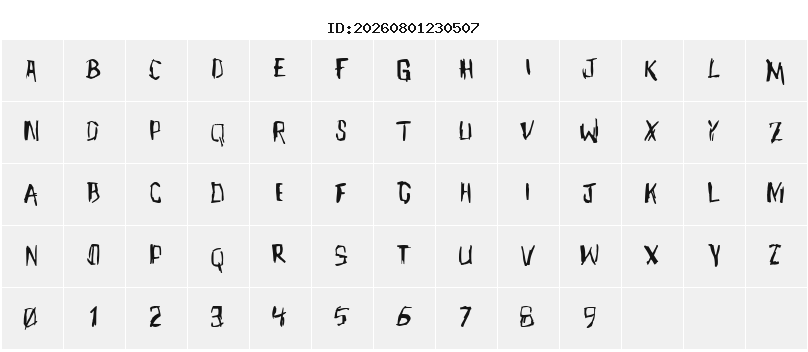
• Font Name: Meet John Henry
• Designer: John Martz
• Manufacturer: Robotic Attack Fonts
• Description: Based on the lettering for They Might Be Giants' album "John Henry".